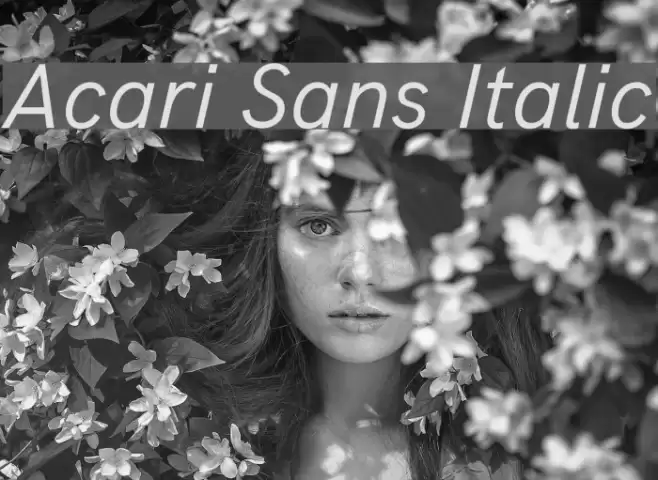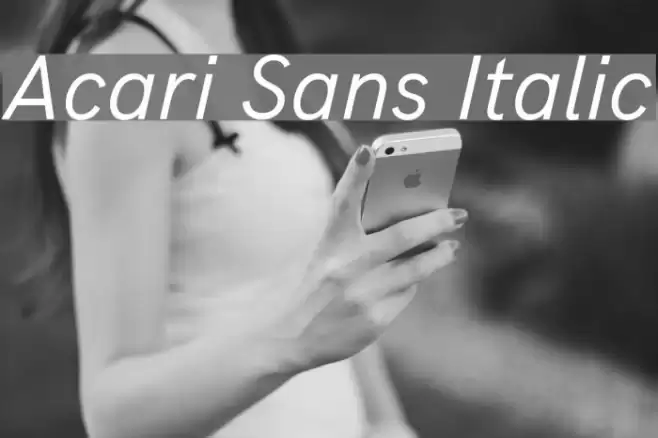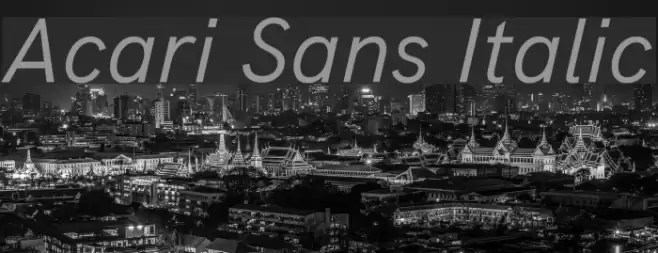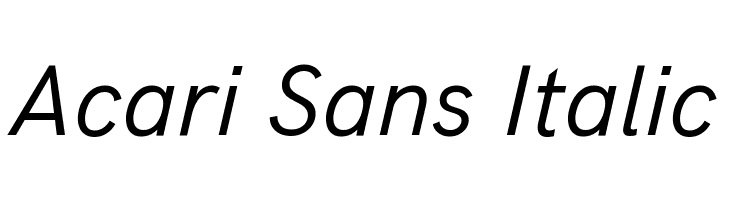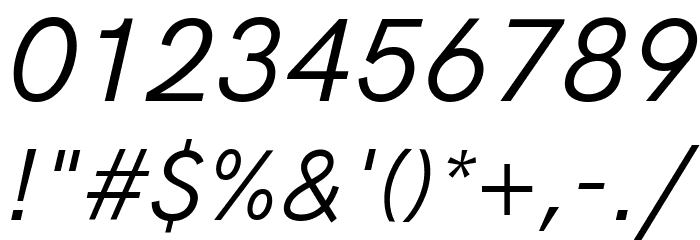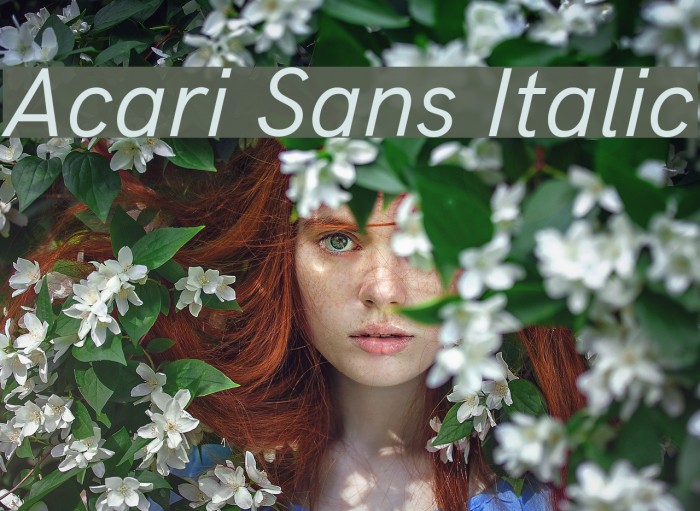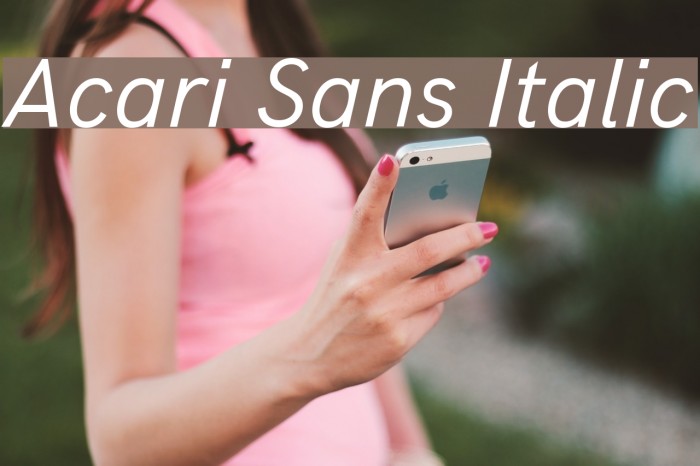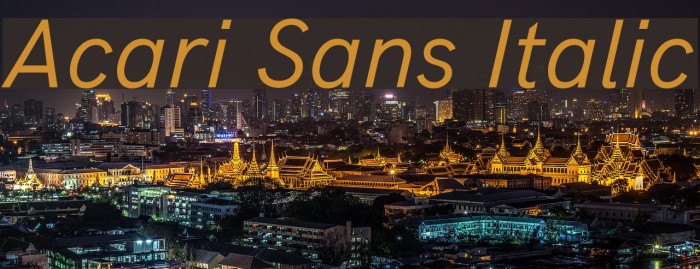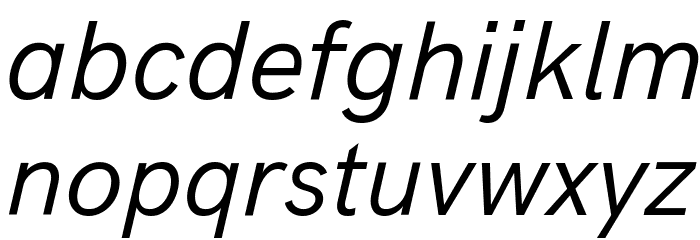
Acari Sans Italic Font
Acari Sans Italic Description
This font features a clean and modern sans-serif design with a slight italic slant, giving it a dynamic and forward-moving appearance. The characters are well-proportioned and maintain a consistent stroke width, contributing to a harmonious and balanced look. The uppercase letters are bold and assertive, while the lowercase letters offer a softer, more approachable feel. The numerals are clear and easily distinguishable, making them suitable for various applications. Special characters are included, maintaining the same sleek and streamlined aesthetic. Overall, this font is versatile and can be used in a variety of design contexts.
A modern sans-serif font with an italic slant, offering a clean and dynamic appearance from Uncategorized fonts.
- Proposed Projects: Ideal for branding, advertising, digital interfaces, and editorial design where a contemporary and professional look is desired.